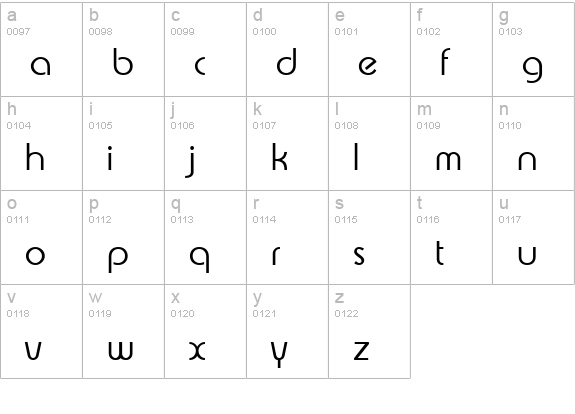
XpressiveLight Regular Font Details
XpressiveLight Regular is the standard, neutral variant in the XpressiveLight typeface family \xE2\x80\x94 well suited to general body text, paragraphs, and standard typographic work.
XpressiveLight Regular font is a stunning and versatile typeface that exudes elegance and sophistication. With its clean lines and modern design, this font is perfect for a wide range of projects, from branding to editorial design. The sleek and stylish appearance of XpressiveLight Regular font makes it ideal for creating eye-catching headlines, logos, and more. The best part? XpressiveLight Regular font is available for free download at FontsMarket.com. This means you can easily add this beautiful font to your collection without any cost. Whether you are a professional designer or a hobbyist looking to enhance your projects, XpressiveLight Regular font is a fantastic choice that will elevate your work to the next level. Download it today and start creating stunning designs with this elegant and versatile font.